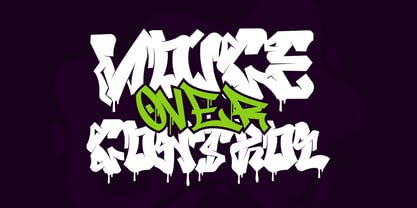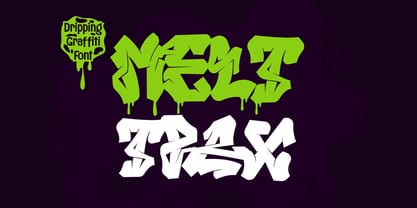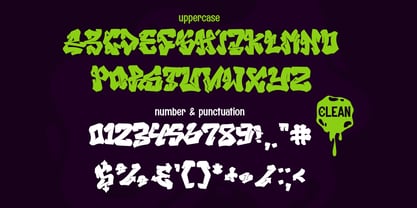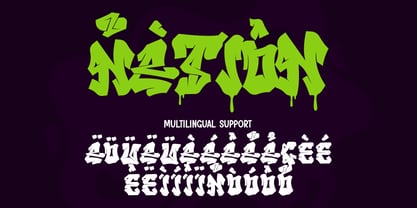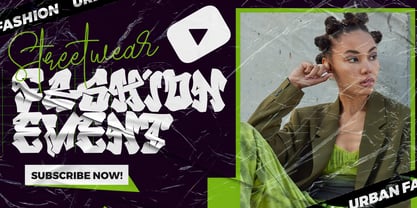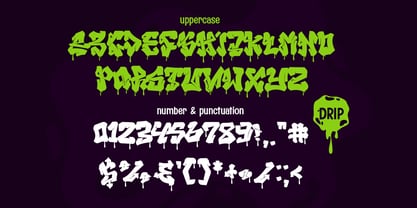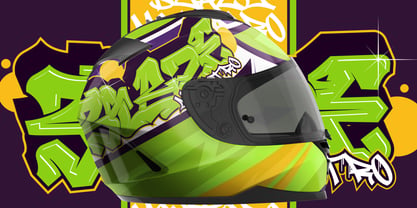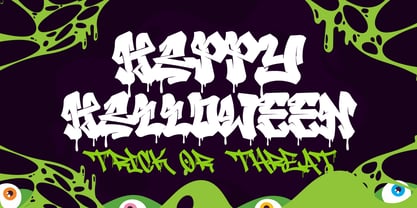
Melttrax
by Sipanji21
The Melttrax Font Family was designed by Sipanji and published by Sipanji21. Melttrax contains 2 styles and family package options. More about this family
Melttrax is a modern graffiti display font that comes in two eye-catching styles: Clean (Solid) and Drip. Its angular, high-impact letterforms and unique urban energy make it ideal for street culture projects, branding, sports-themed designs, and Halloween visuals.
The dripping style adds a creepy, horror-themed twist perfect for posters, album covers, and seasonal campaigns. Designed with versatility in mind, Melttrax works well in both print and digital formats.